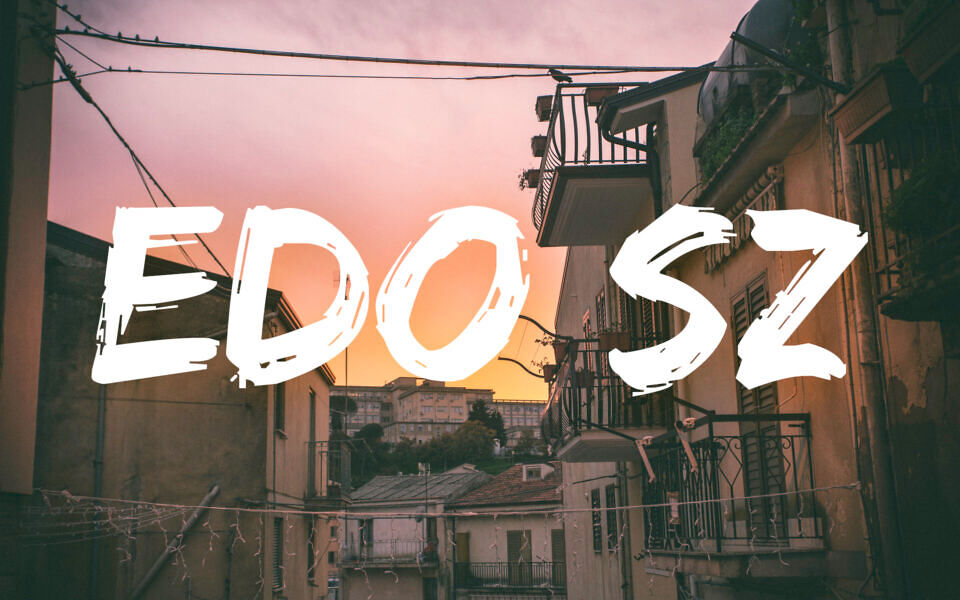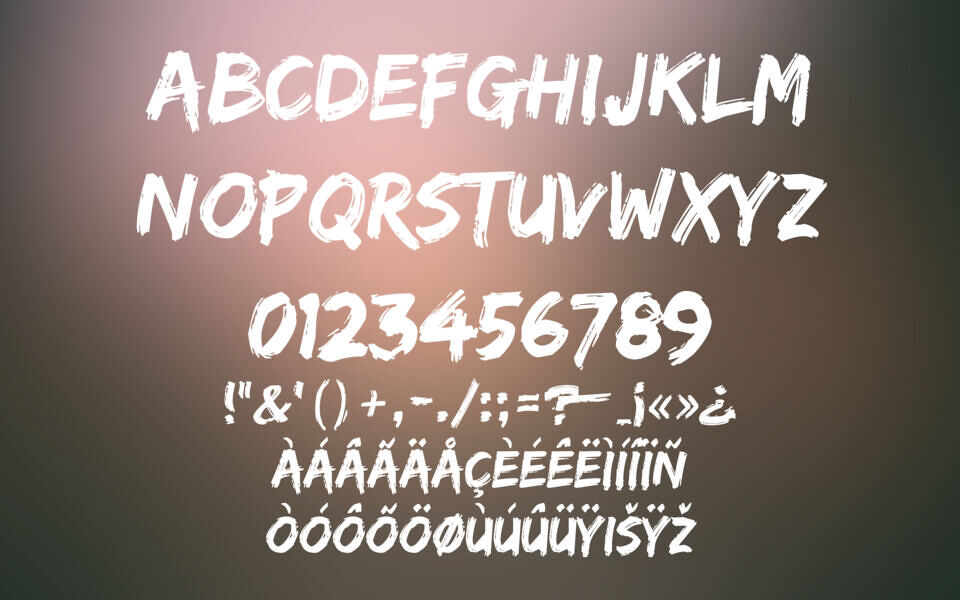
Edo SZ Font
Edo SZ is a bold brush-style font designed by Vic Fieger, featuring dynamic, hand-painted strokes and an energetic, urban feel. Its rough edges and flowing shapes give text a strong, expressive impact, making it perfect for posters, logos, and creative projects.
Edo has been used by video game-makers Ubisoft in their game adaptation of the 2007 animated film Surf’s Up, as well as ads for the Fuse 2006 Warped Tour. More recently, it has turned up in such places as the cover for the US release of the manga Teru Teru x Shonen, and the logo for the A&E television series, “The Cleaner”.